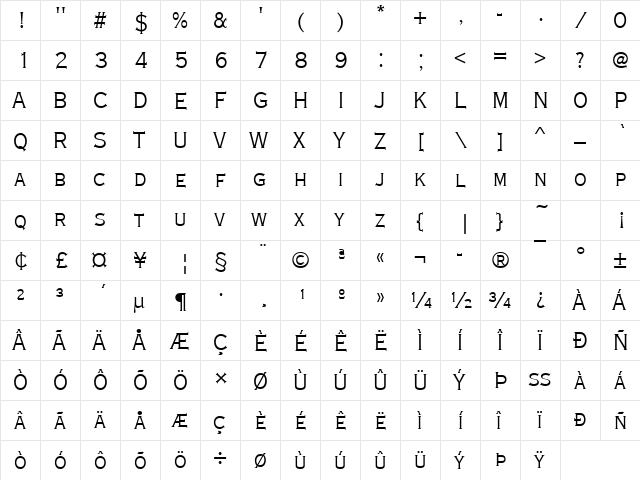
Copperplate Becker Light Cond Regular Font Preview
Design Context for Copperplate Becker Light Cond Typeface
Copperplate Becker Light Cond offers clean, dependable letterforms without strong stylistic allegiance, making it a practical choice for designers who need flexibility. The delicate stroke weight brings airiness and refinement to layouts. The condensed width makes it efficient for tight spaces without sacrificing legibility.